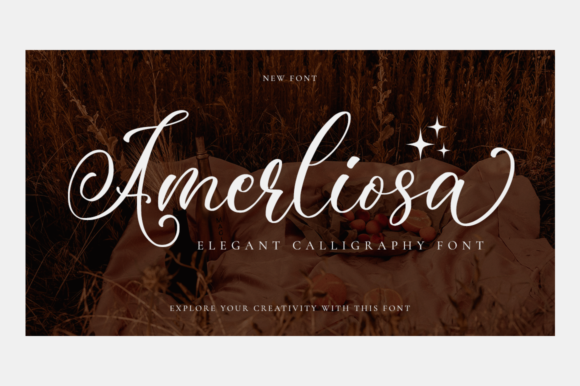
Amerliosa Font
Amerliosa is a ravishing calligraphy typeface with characters that dance along the baseline. It will add a luxury spark to any design project that you wish to create! This font is PUA encoded which means you can access all of the amazing glyphs and ligatures with ease!